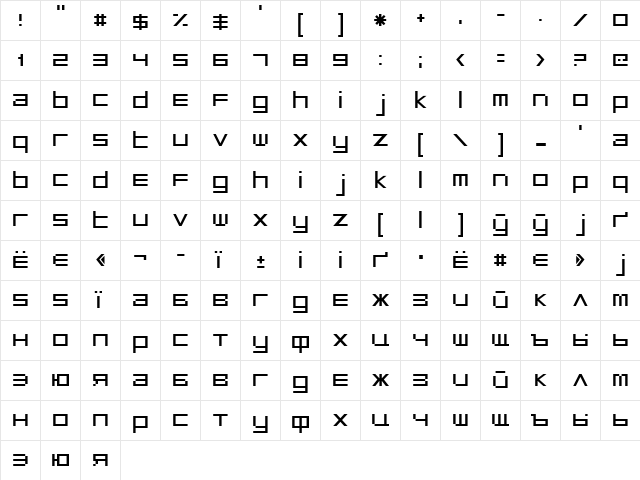
MicroTech Regular
| Designer | Dubina Nikolay |
Design Context for MicroTech Typeface
MicroTech has a distinctly futuristic character, with geometric precision and clean angles that feel at home in technology, gaming, and sci-fi contexts.
Pro Tip: Try MicroTech with generous letter-spacing in UI labels and navigation — the geometric forms benefit from room to breathe.